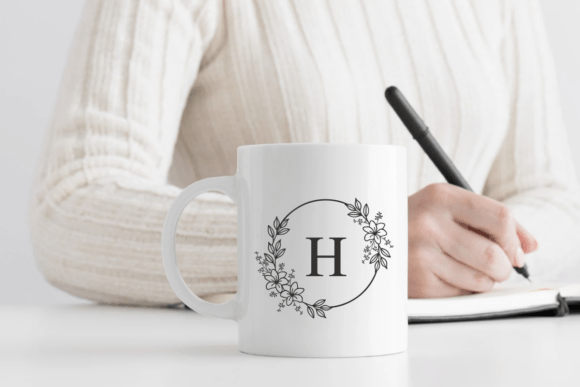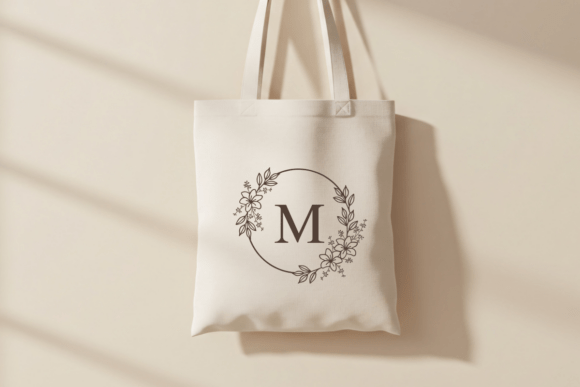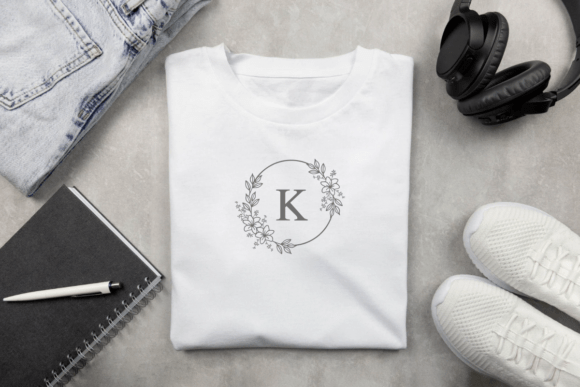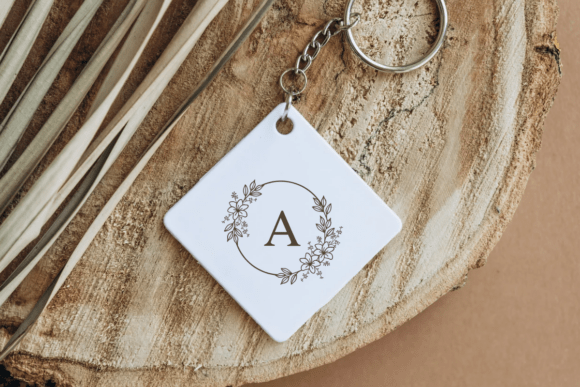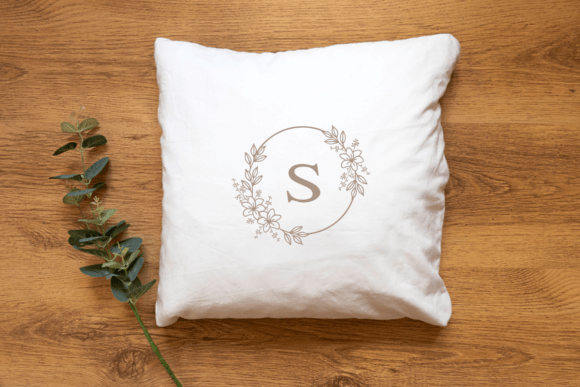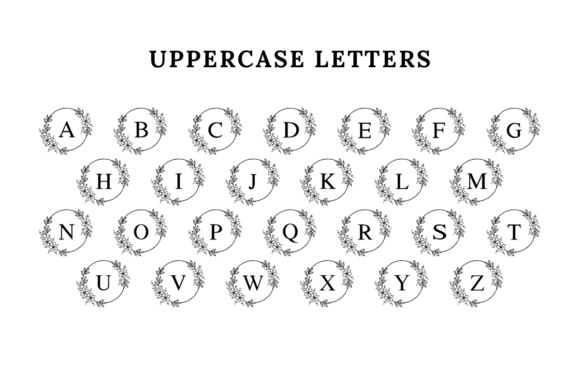
Discover the Beauty of Floral Elegance Monogram Font
I’ll never forget the time I was working on a wedding invitation project, and my client asked for a font that would make their special day feel like a fairytale. I scoured the internet, tried countless fonts, but nothing seemed quite right. That was until I stumbled upon the Floral Elegance Monogram Font. It was love at first sight! 💕 The intricate details, the elegance, the whimsy – it was all there. In this article, I’ll share my experience with this lovely decorative font, and show you how to make the most of it in your creative projects.
- ✨ Elegant and sophisticated design, perfect for special occasions
- ✅ Easy to use and navigate, even for beginners
- 💐 Beautiful floral patterns and monogram options
- 🎨 Highly versatile, suitable for various design projects
While Floral Elegance Monogram Font is an excellent choice, there are a few things to keep in mind:
- 🤔 Some characters may not work well in smaller font sizes
- ⚠️ Limited availability of certain special characters
A Practical Guide: Using Floral Elegance Monogram Font in Your Projects
The Story Behind Floral Elegance Monogram Font
Floral Elegance Monogram Font was designed with love and care by a talented type designer. Inspired by traditional floral patterns and elegant calligraphy, this font was created to bring a touch of sophistication to any design project. Whether you’re working on wedding invitations, greeting cards, or social media graphics, Floral Elegance Monogram Font is sure to impress.
| Font Name | Floral Elegance Monogram Font |
| Author | Nun Sukhwan |
| Is Floral Elegance Monogram Font suitable for body text? | While it’s possible to use Floral Elegance Monogram Font for body text, it’s recommended for headlines, titles, and short paragraphs due to its decorative nature. |